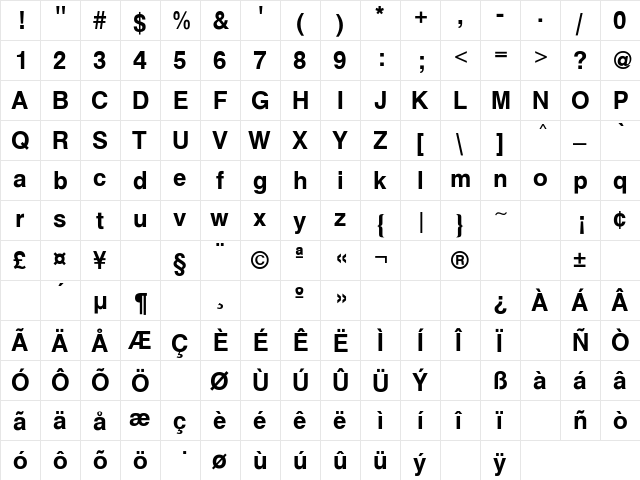
Sans Regular
Design Context for Sans Typeface
Sans is a composed and adaptable typeface that performs quietly and consistently across a wide range of design contexts.